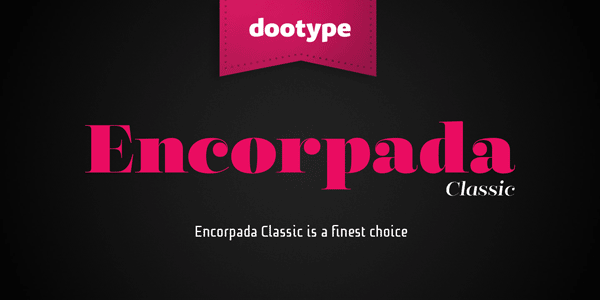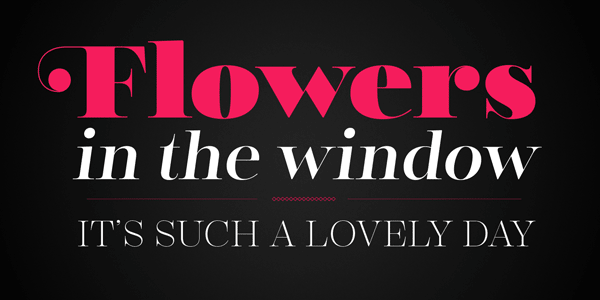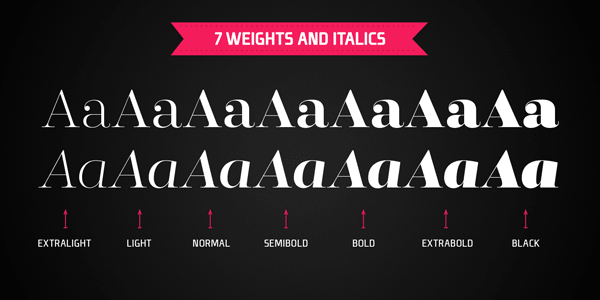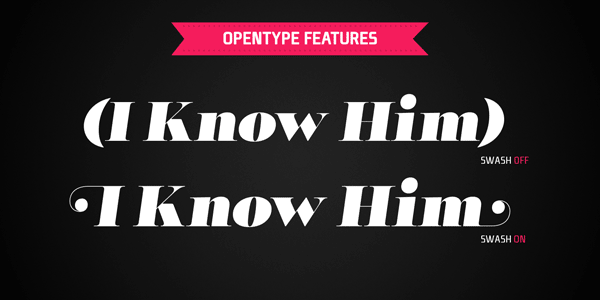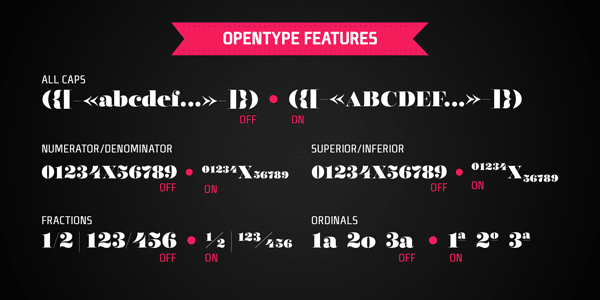
Encorpada Classic – Didone Serif Type Family.
The Encorpada Classic font family was designed in 2013 by Eduilson Wessler Coan (Font Publisher: dooType). The type family consists of 14 styles (7 weights and matching italics). Encorpada Classic has a typical Didone typeface, but with a contemporary look and feel. Its elegant shape offers smooth details. Due to the different weights from Extra Light to Black, you can use this type family as display font for bold headlines as well as text font for small and long texts. The Encorpada Classic serif font family also includes several OpenType features such as swashes, all caps, numerator/denominator, superior/inferior, fractions, and ordinals.